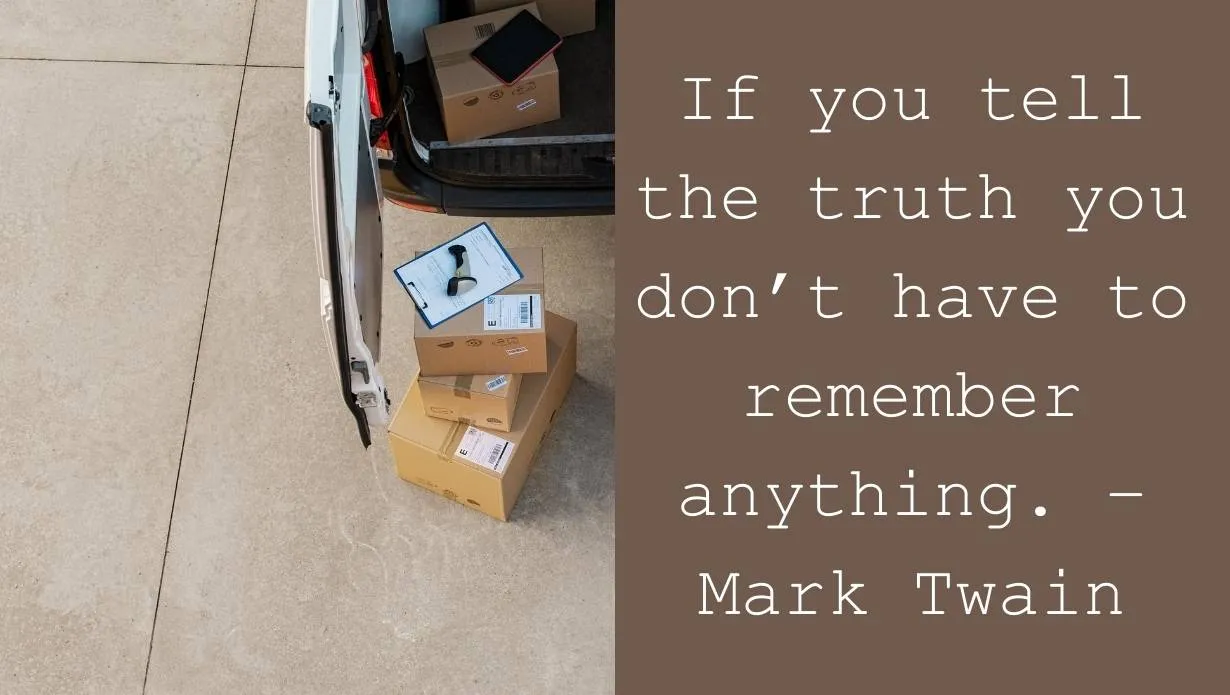
Today, we are presenting the most suitable and gorgeous font that has clear surfaces and appearance named Courier New Font. This typeface is published under the banner of The Agfa Monotype Corporation foundry. The release year of this typeface is 1992.
The file format of this font is an open typeface and true typeface features can easily be available for your web browsers. This typeface family has come in 4 styles New, Bold Italic, Bold, and Italic. This font is very similar to the Choplin Font.